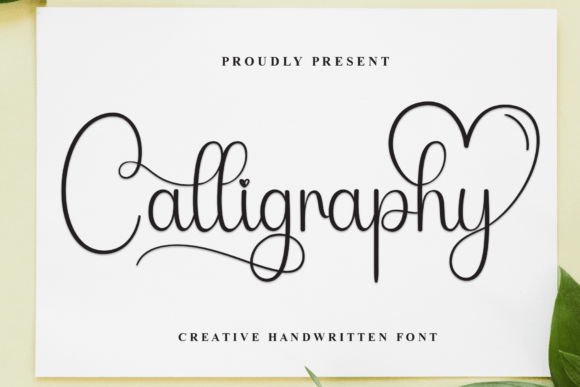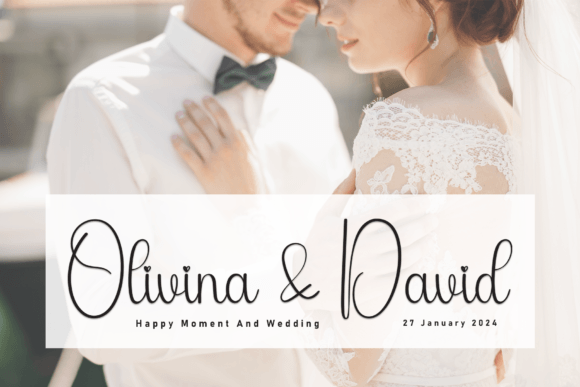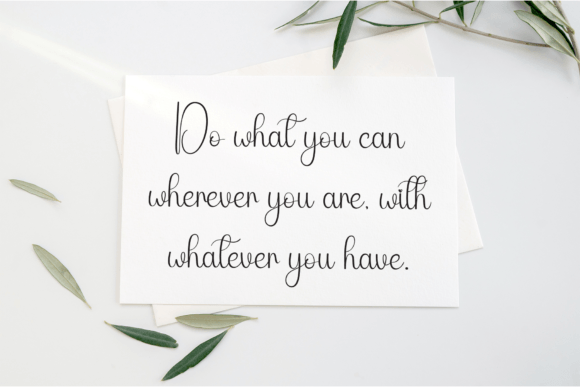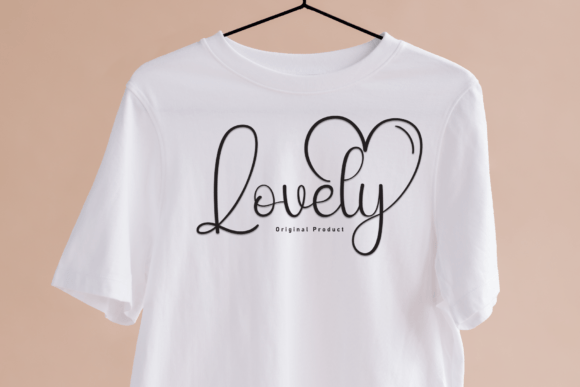
About the Calligraphy Font
Unleash your creativity with Calligraphy Font, a versatile font perfect for a wide range of applications. Calligraphy is a sweet and friendly handwritten display font. Cute and fun, this font is ideal for writing wedding invitations, cards, or any other design that might need a fun touch!
Calligraphy Font Usage Examples